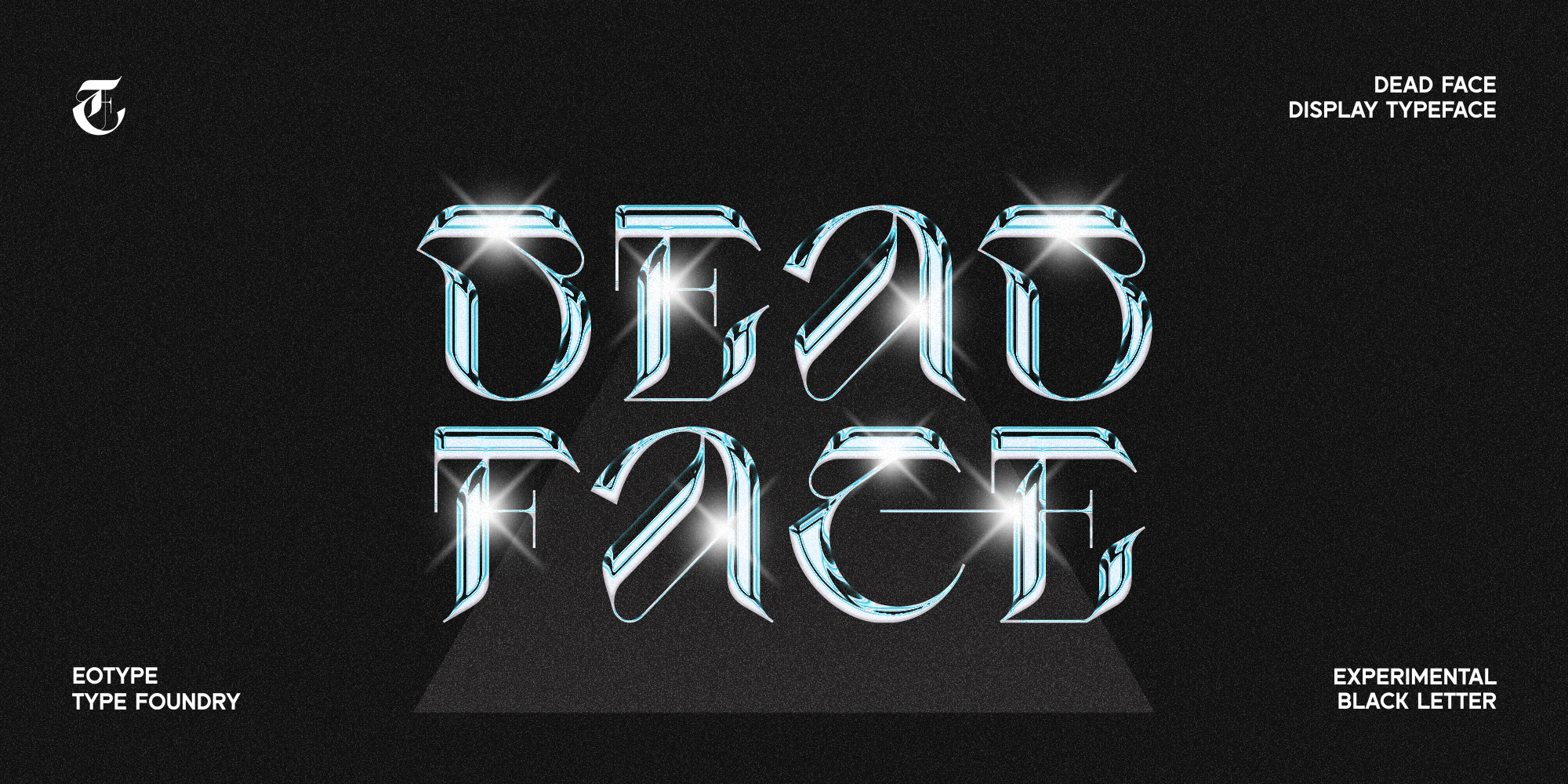
Dead Face Font is perfect for horror movie productions, Halloween event materials, dark metal band branding, gothic art exhibitions, haunted attraction signage, supernatural gaming projects, thriller book covers, zombie-themed entertainment, and spooky social media campaigns. This chilling typeface brings haunting atmosphere and supernatural intensity to both digital and print design applications.
Dead Face Font is exciting because it captures the eerie essence and haunting presence of supernatural horror, making it an exceptional choice for designers who want to convey spine-chilling atmosphere with authentic horror appeal. Its macabre letterforms and haunting character provide the perfect combination of terrifying impact and readable functionality, ensuring your projects communicate fear, suspense, and horror excellence that resonates with audiences seeking genuine supernatural experiences and thrilling entertainment.
The Dead Face Font family includes haunting weight variations and supernatural elements, featuring regular and bold weights with complementary distressed styles, eerie ligatures, and horror-inspired decorative details. Each style maintains consistent macabre aesthetics while offering flexibility for different horror applications, allowing designers to create spine-chilling visual systems that reflect supernatural atmosphere and haunting sophistication.
Whether you're designing for horror entertainment brands, Halloween businesses, or supernatural projects, Dead Face Font Free Download delivers authentic horror appeal and haunting sophistication that connects with audiences seeking genuine supernatural thrills and horror experiences. This premium typeface offers designers the chilling atmosphere and macabre elegance needed to create designs that communicate horror excellence, supernatural suspense, and haunting entertainment effectively. The font's terrifying character makes it perfect for horror branding, supernatural campaigns, and haunting applications where authentic horror credibility is essential. Download Dead Face Font today and haunt your creative projects with genuine supernatural sophistication and horror typography excellence that defines spine-chilling design standards.